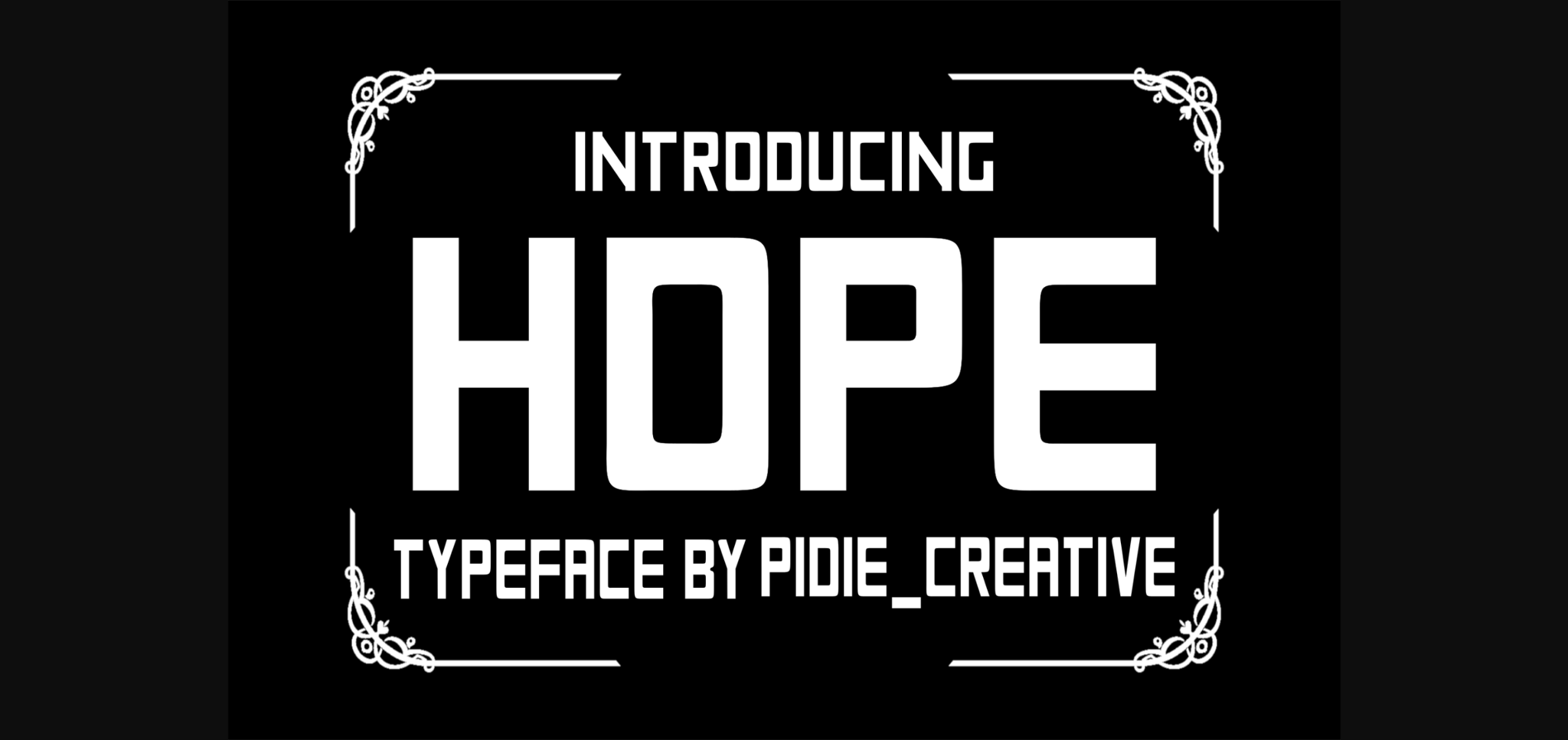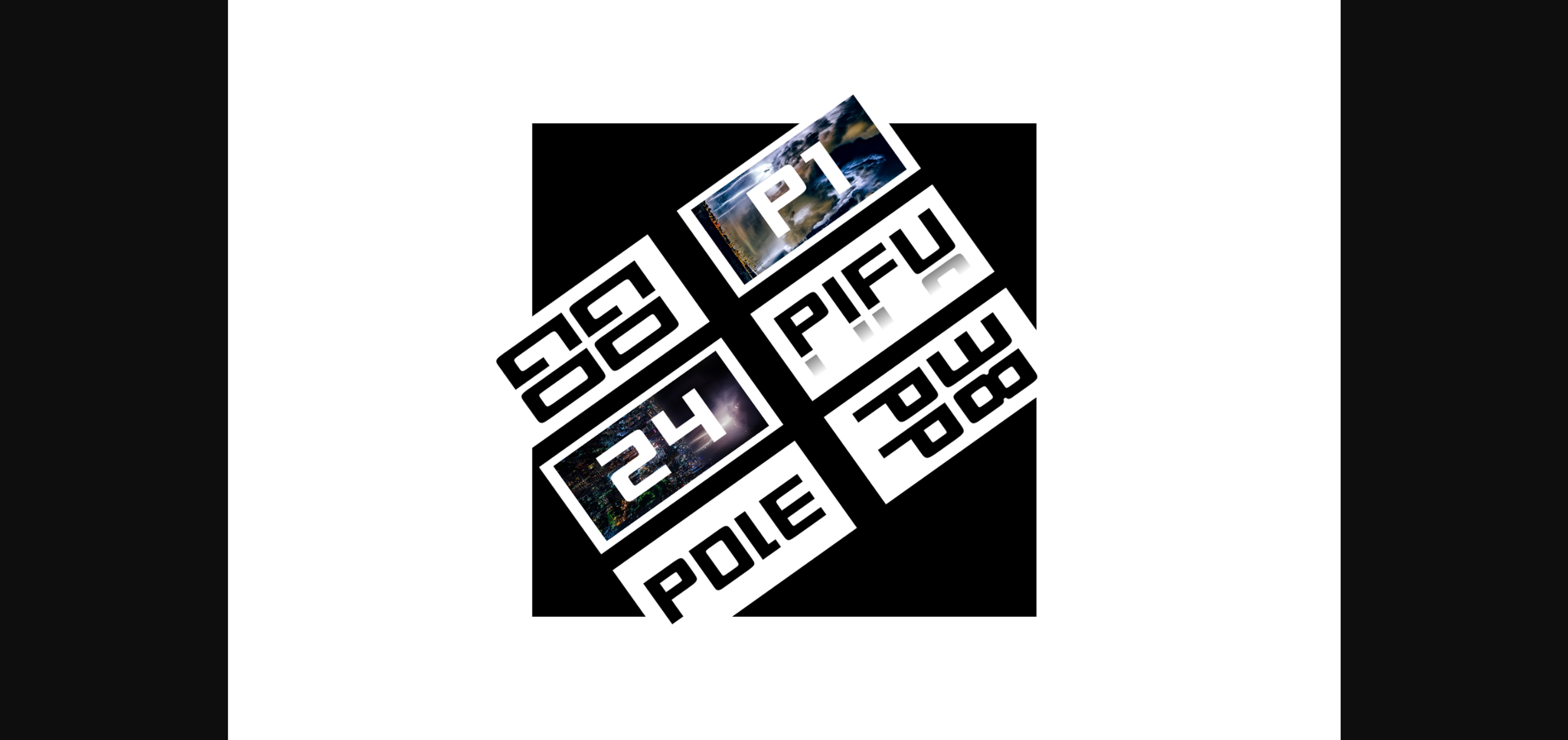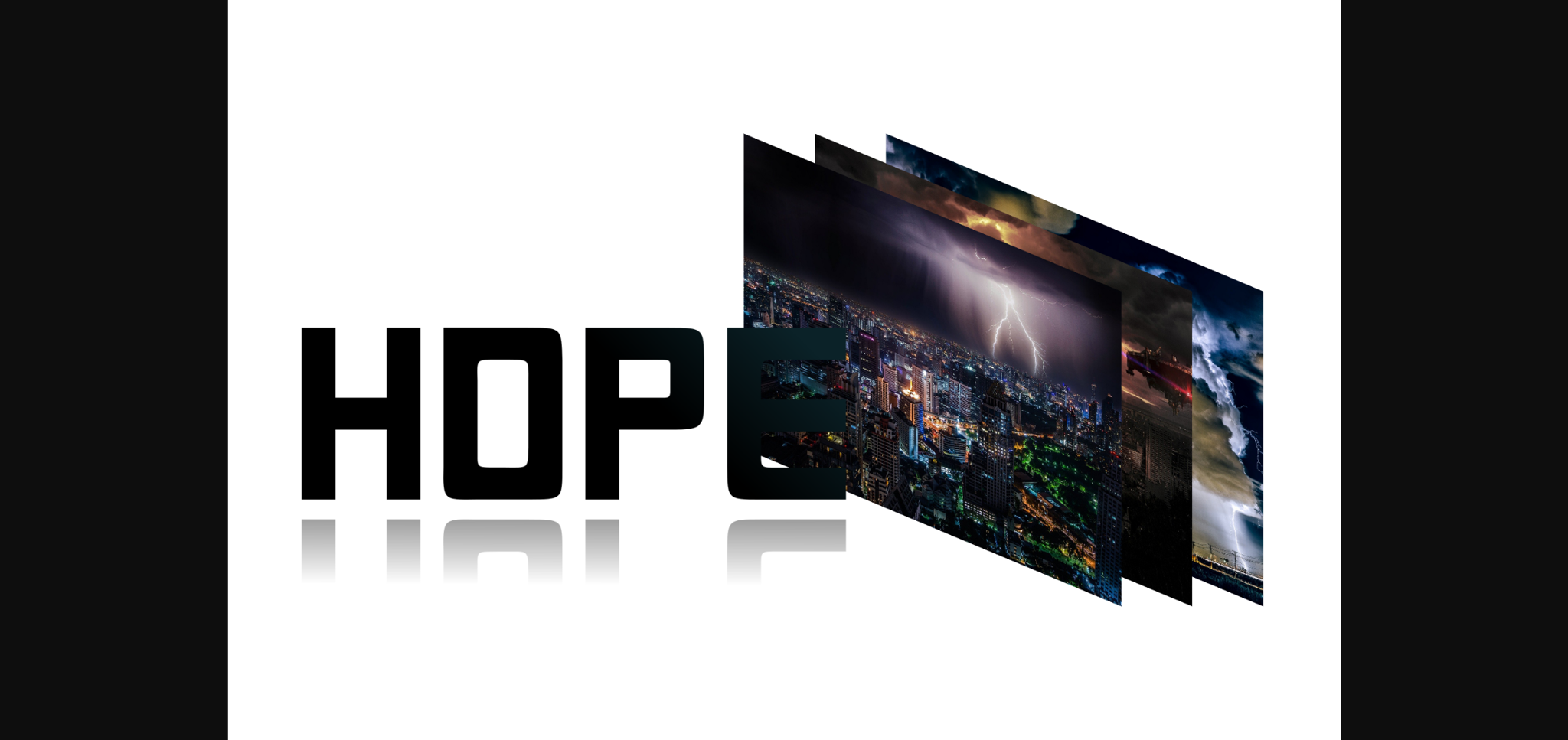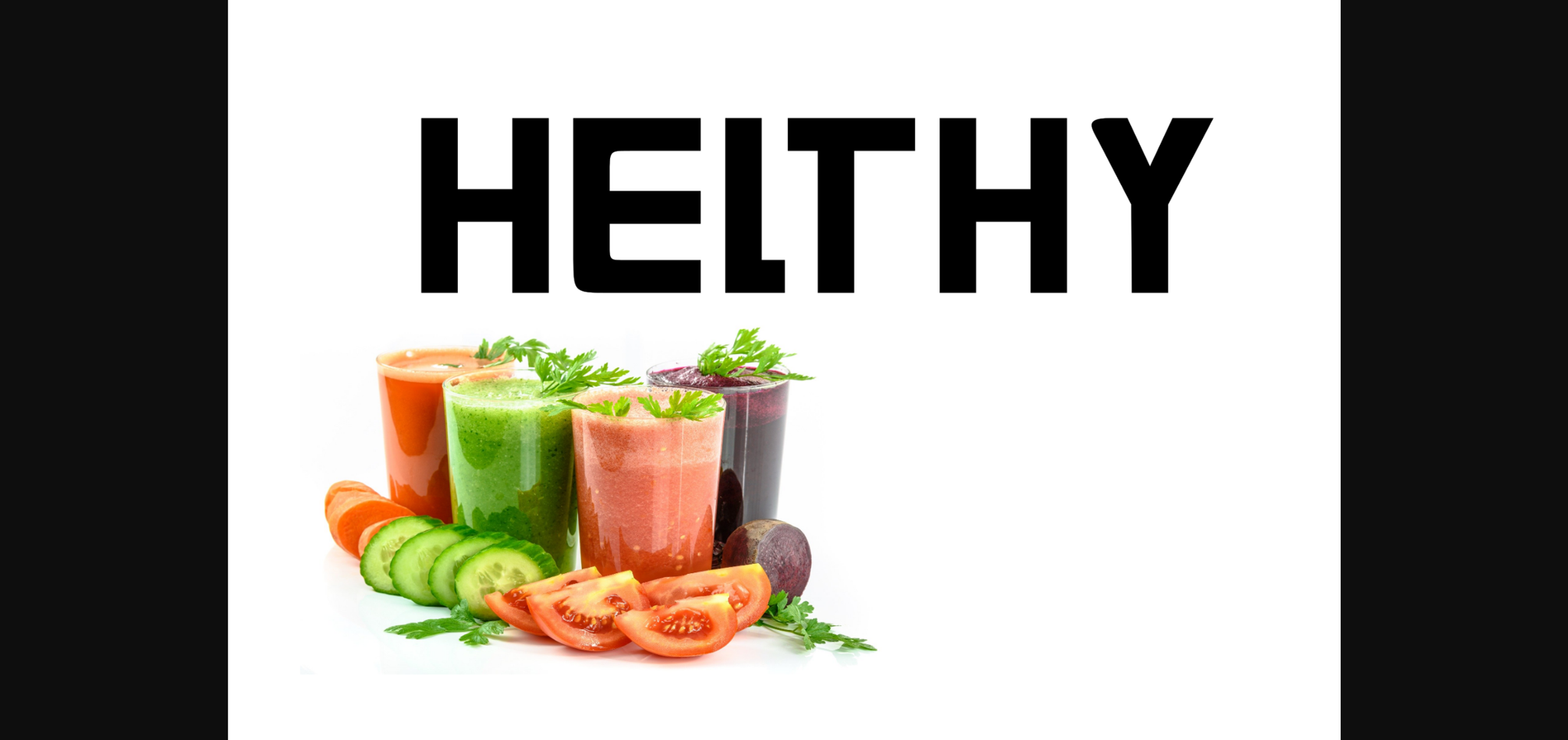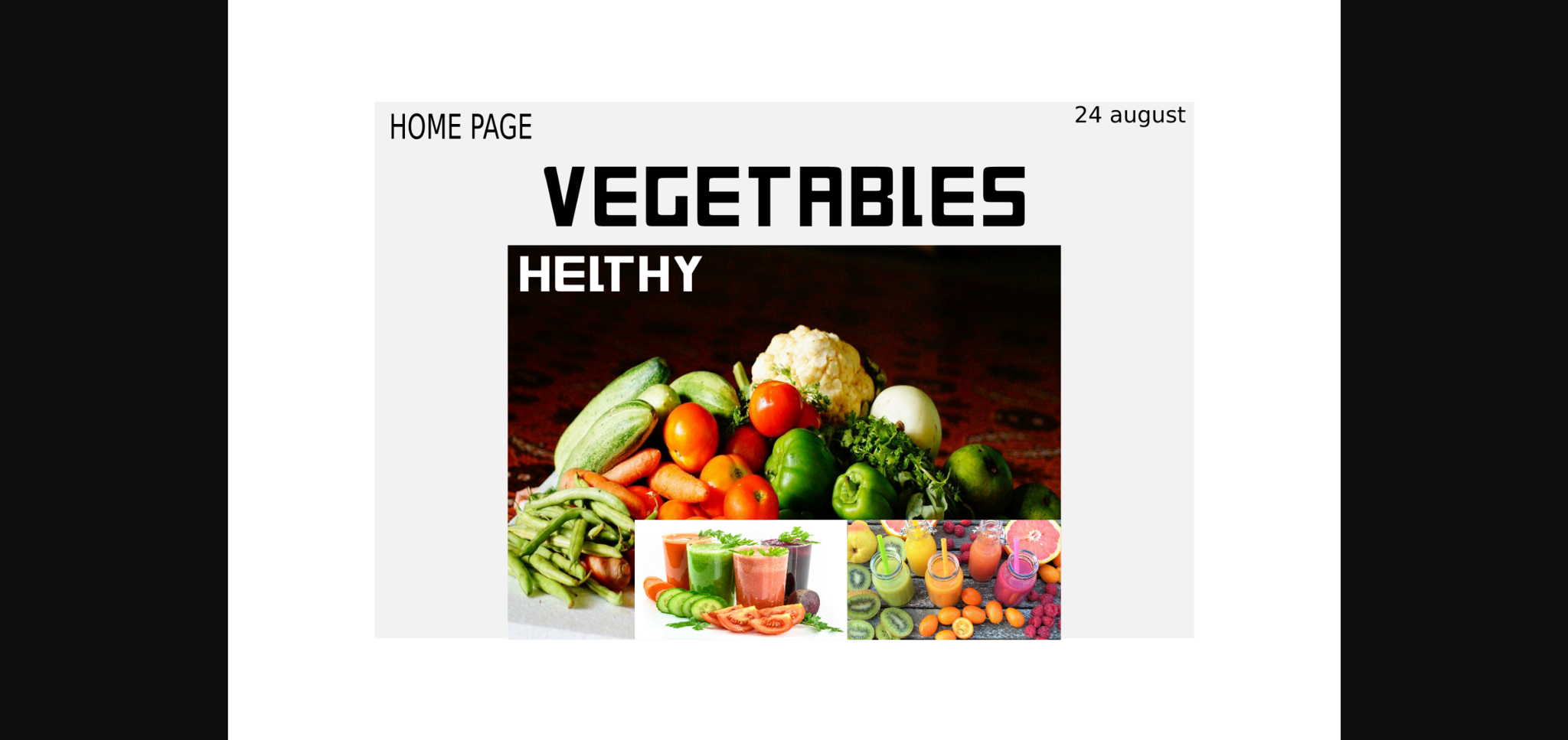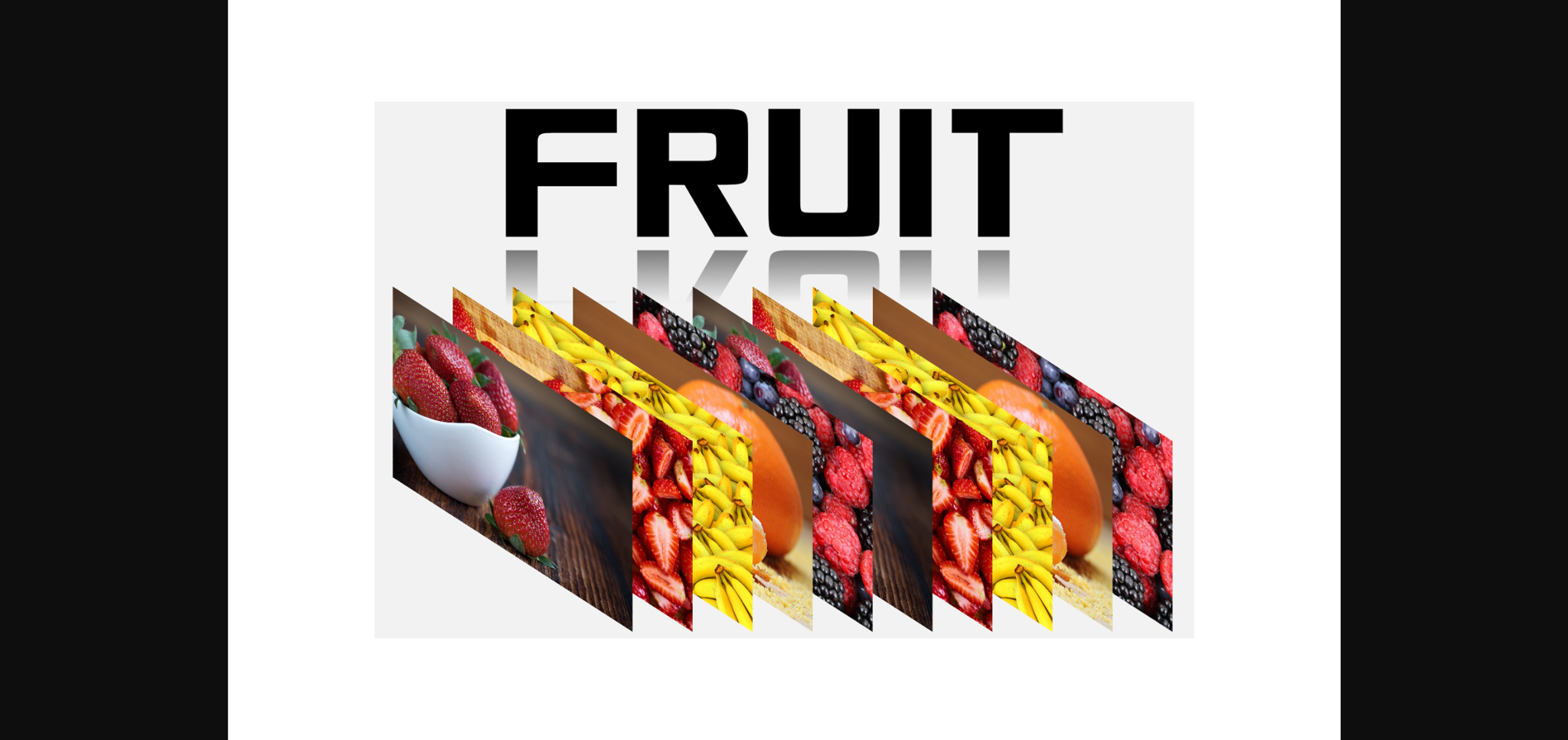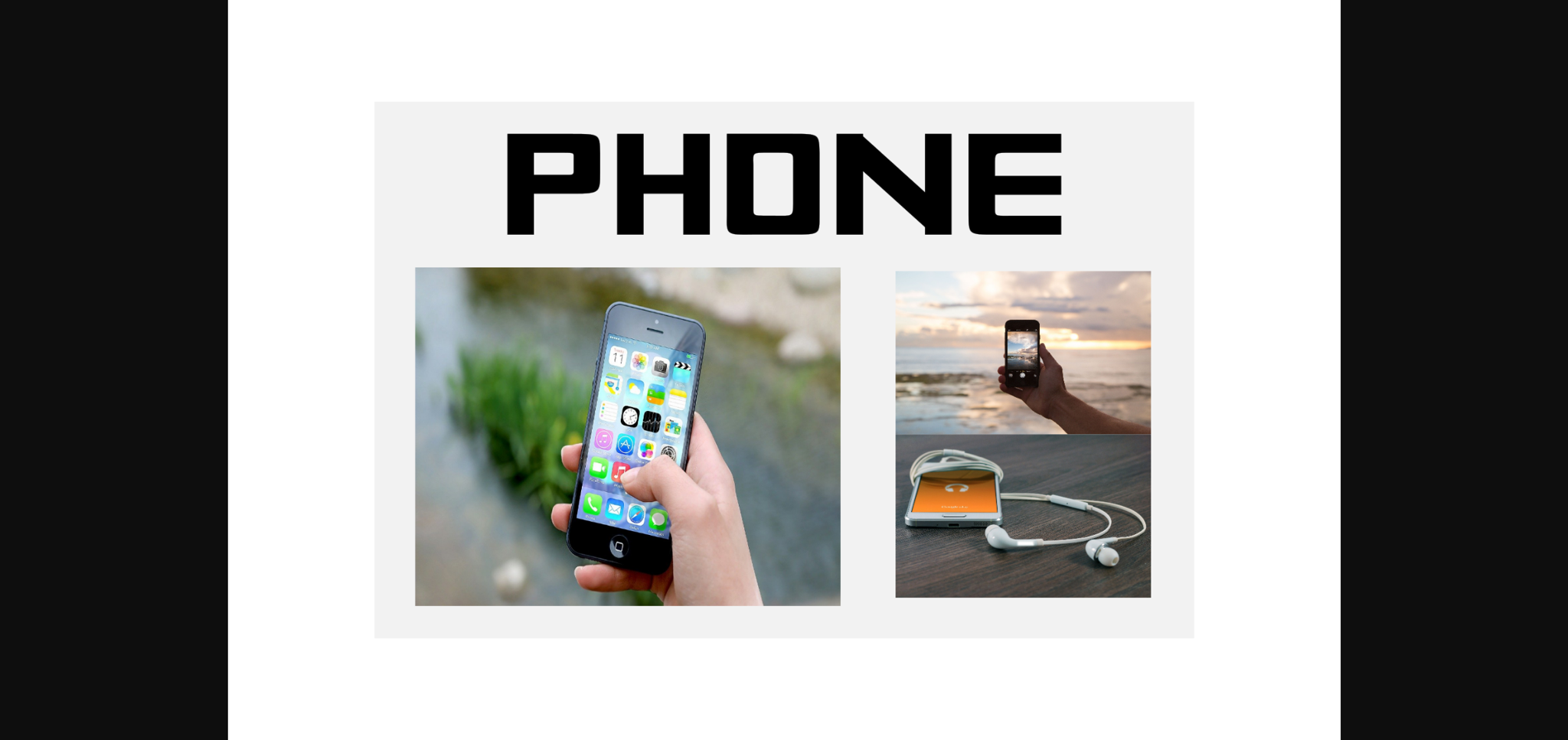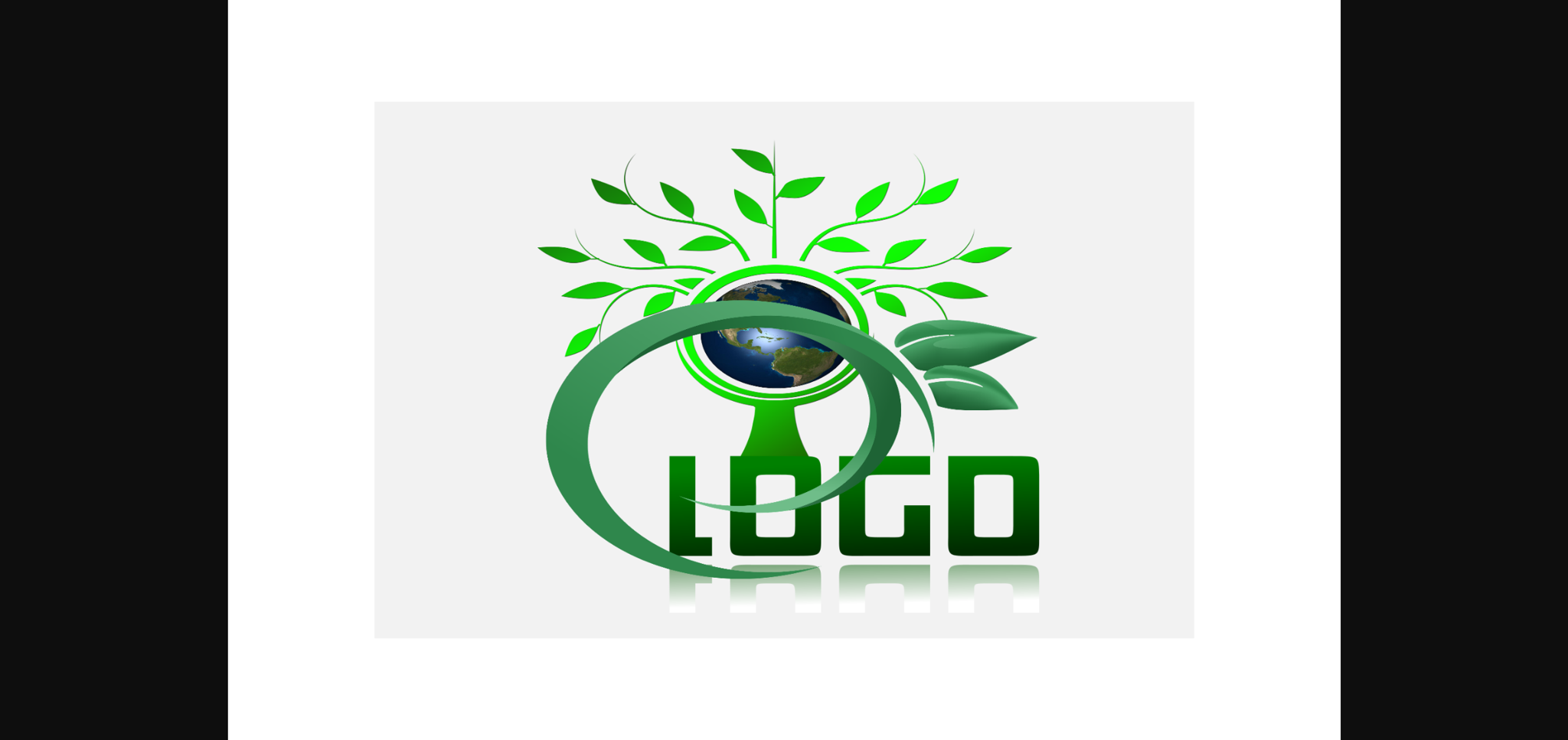
HomeSans Serif FontsHope Font Sans Serif Fonts Hope Font FacebookXPinterestWhatsApp 1 of 11 ... Hope Font Poster 2... Hope Font Poster 3... Hope Font Poster 4... Hope Font Poster 5... Hope Font Poster 6... Hope Font Poster 7... Hope Font Poster 8... Hope Font Poster 9... Hope Font Poster 10... Hope Font Poster 11... About Hope Font Hope is a bold and neat sans serif font. It can easily be matched to an incredibly large set of projects, so add it to your creative ideas and notice how it makes them stand out! DOWNLOAD NOW People also explored Better Coffee Font Simple Work Font Hello Januari Font Gaby Font Rhosetta Script Font Qinder Butter Font Magic Night Font Good Vibes Only – Font Duo Barastasya Font 334 0 TagsHopeHope Font Previous articleHoodie & Sweater FontNext articleAdidog Font LEAVE A REPLY Cancel reply Comment: Please enter your comment! Name:* Please enter your name here Email:* You have entered an incorrect email address! Please enter your email address here Website: Save my name, email, and website in this browser for the next time I comment. Personal Use Free Zephan Personal Use Free Read more about this font Coffete Personal Use Free Read more about this font BD Geminis Personal Use Free Read more about this font Legacy Personal Use Free Read more about this font BLOG Fonts That Capture the Spirit of New York City New York City is more than just a place—it’s an experience, a rhythm, a visual language... Transform Your Website: Elevate Your Typography with 7 Best Web Font Generators Top 7 Google Fonts Alternatives for Faster and Privacy-Friendly Web Design (2025) Elegant Wedding Invitation Fonts – Handwritten & Script Fonts